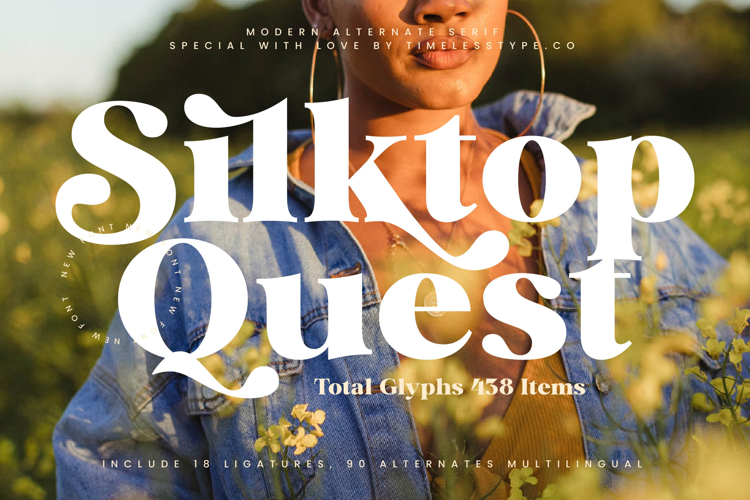
Silktop Quest - Modern Alternate Serif
Silktop Quest is a modern alternate serif font that blends refined elegance with bold, contemporary design. With its clean yet decorative letterforms, flowing curves, and high-contrast strokes, this typeface brings a sophisticated aesthetic to any project. Designed with 18 ligatures and 90 alternates, Silktop Quest offers immense creative flexibility, ensuring typography that feels expressive, dynamic, and truly unique. With 438 total glyphs and multilingual support, it adapts seamlessly across a wide range of global design needs.
This font is crafted to shine in headline typography, where its striking forms and stylish alternates immediately capture attention across posters, editorial spreads, and banners. In branding and logo design, Silktop Quest communicates prestige and originality, making it ideal for fashion, lifestyle, and boutique businesses that seek a timeless yet modern identity. Its strong personality also makes it a standout choice for packaging design, particularly for cosmetics, beverages, and artisanal goods where elegance and impact are essential.